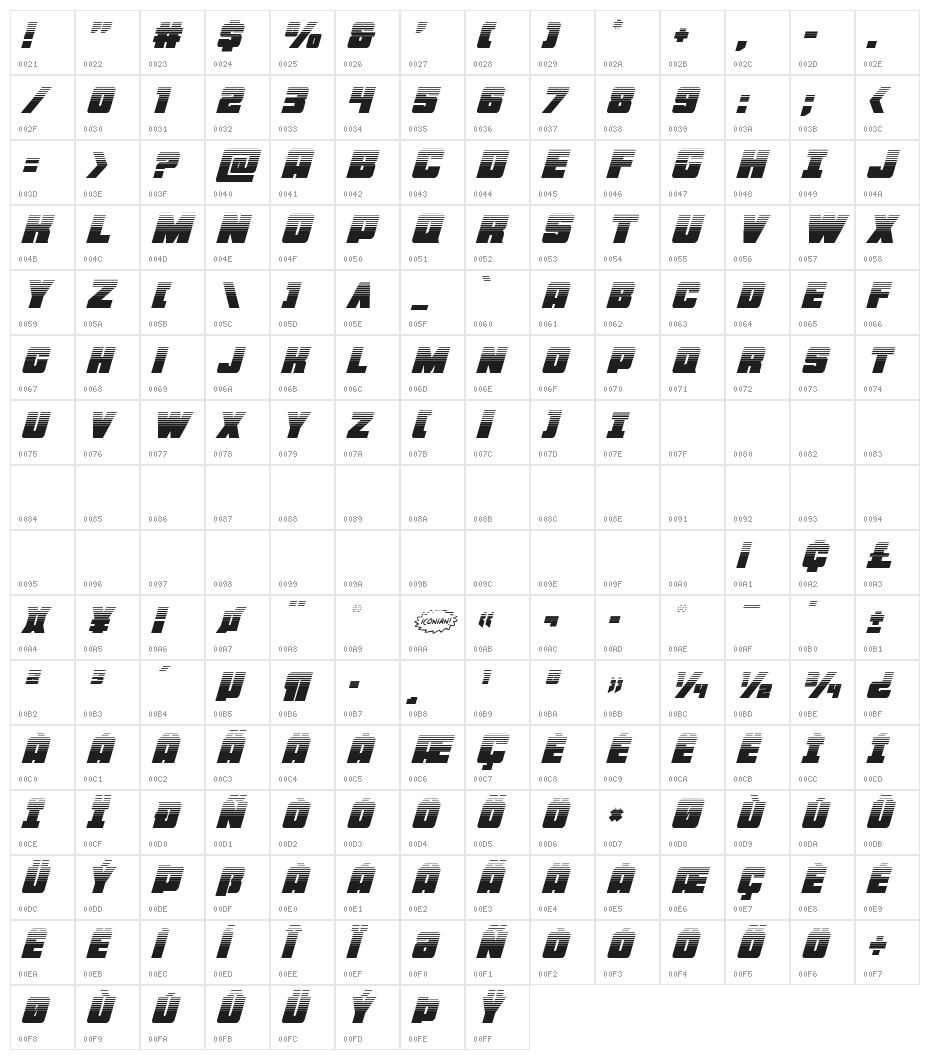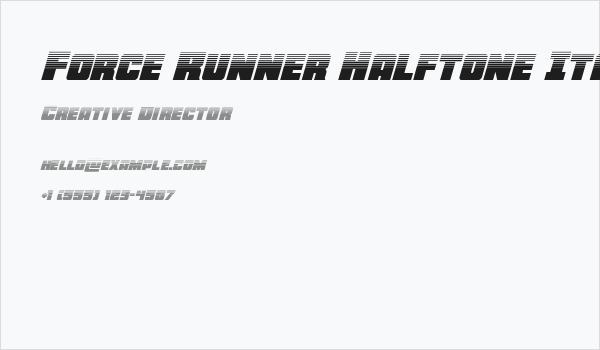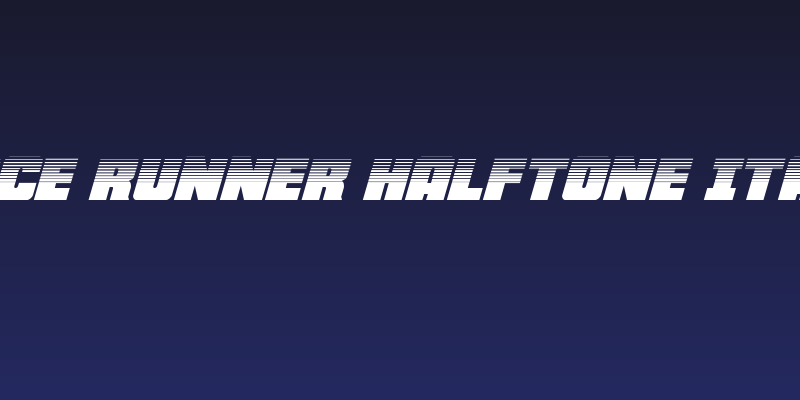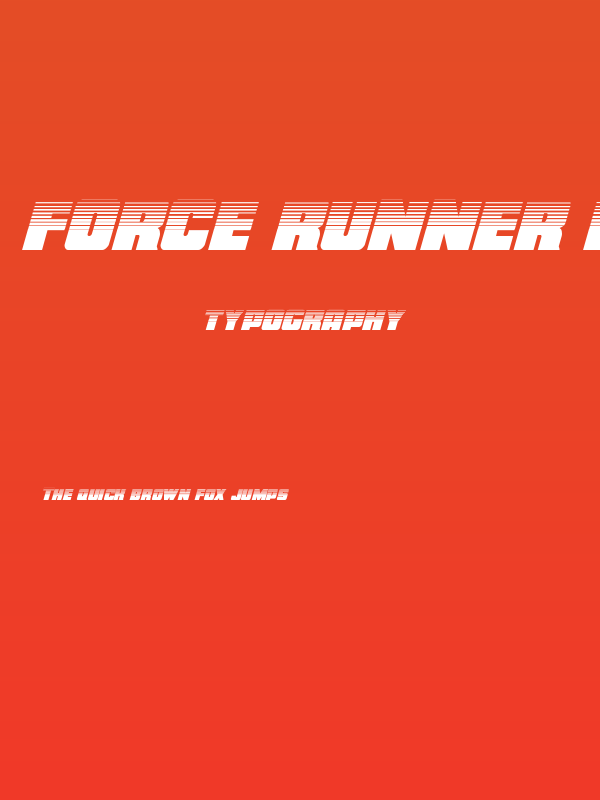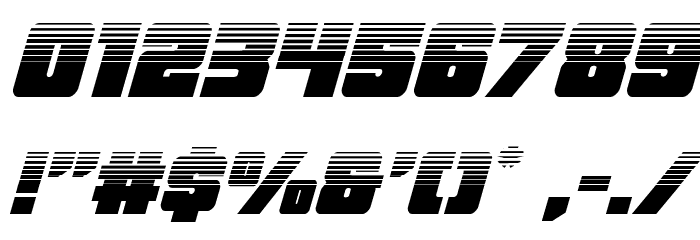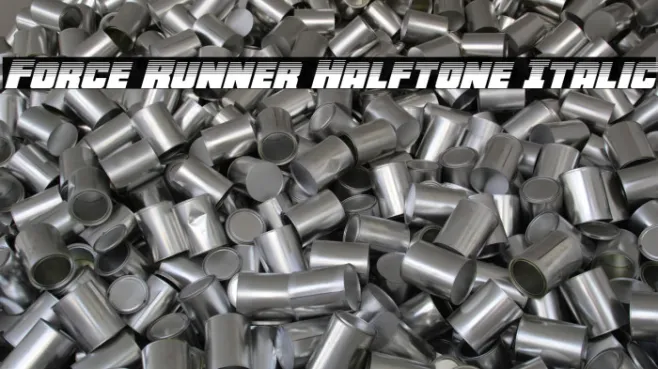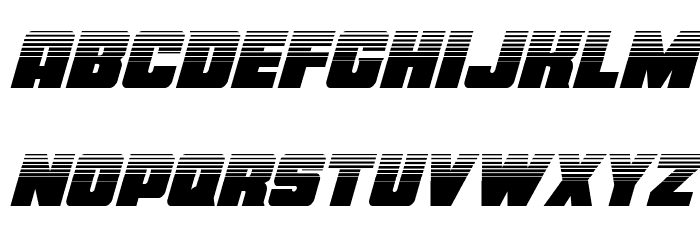
Force Runner Halftone Italic Font
Force Runner Halftone Italic Description
This font features a bold, dynamic style with a distinct halftone pattern that gives it a sense of motion and energy. The italicized slant enhances its forward-moving appearance, making it ideal for projects that require a sense of speed or urgency. The uppercase and lowercase letters are designed with a consistent width, and the numbers and special characters maintain the same energetic style. The halftone effect is achieved through horizontal lines that create a gradient-like appearance, adding depth and dimension to the characters. This font is perfect for eye-catching designs, such as sports branding, automotive advertisements, or any project that needs a futuristic and bold aesthetic.
| Proposed Projects | Ideal for sports branding, automotive advertisements, and futuristic designs. |